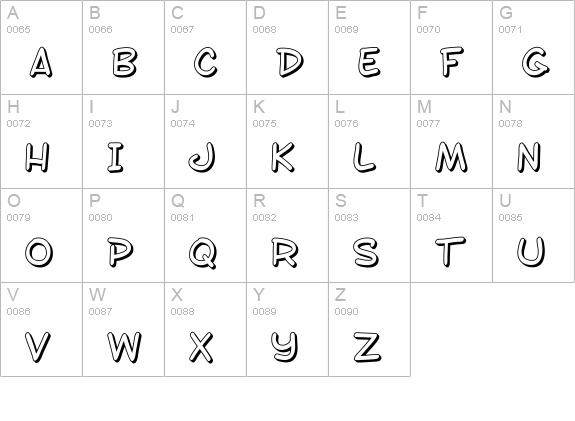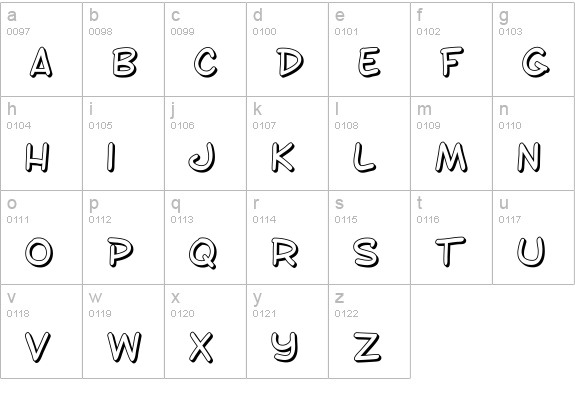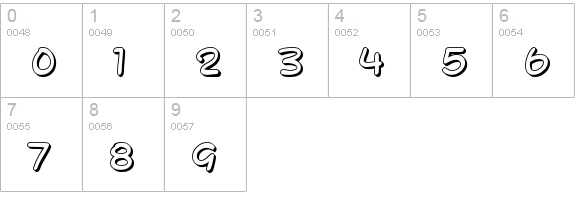
SF Toontime Shaded Font Details
SF Toontime Shaded font is a playful and whimsical typeface that brings a touch of fun to any design project. With its rounded edges and charming, cartoony style, this font is perfect for adding a touch of lightheartedness to children's books, comic strips, logos, and more. The Toontime Shaded font features a unique shading effect that adds depth and dimension to each letter, giving them a three-dimensional appearance. This effect helps to enhance the overall playful and animated feel of the font, making it stand out from the crowd. One of the best things about SF Toontime Shaded font is that it is available for free. Yes, you read that right! This incredible font can be freely downloaded from FontsMarket.com. Whether you're a professional graphic designer or just someone who loves to experiment with different fonts, you can now enjoy the benefits of this delightful typeface without breaking the bank. Not only does SF Toontime Shaded font offer great versatility, but it also comes with a wide range of characters and symbols, making it suitable for various languages and design purposes. From uppercase and lowercase letters to numerals, punctuation marks, and special characters, this font has got you covered. So, whether you're looking to create eye-catching posters, captivating social media graphics, or simply want to add a touch of whimsy to your personal projects, SF Toontime Shaded font is the perfect choice. With its cheerful and lively aesthetic, it will bring a smile to anyone who encounters it. Don't miss out on the opportunity to download this fantastic font for free at FontsMarket.com. Let SF Toontime Shaded font unleash your creativity and take your designs to a whole new level of fun and excitement.